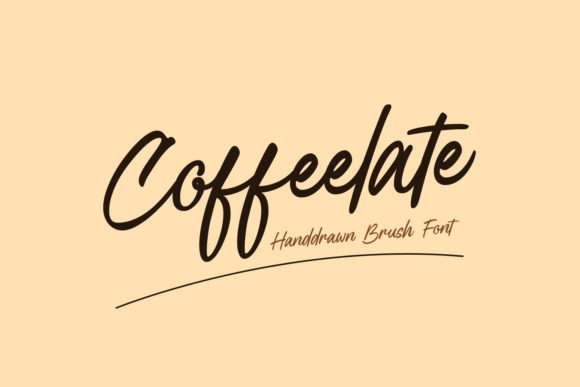
Dive into the world of elegance and creativity with Coffeelate Font, a captivating script font that will transform your design projects into masterpieces. Its light, airy strokes and unique charm will add a touch of sophistication to any creation.
Indulge in the luxury of Coffeelate Font's exquisite design and let your words dance across the page with grace and fluidity. Whether you're a seasoned designer or just starting, this font will elevate your work to new heights.
Coffeelate Font is crafted with meticulous attention to detail, ensuring that each letter and glyph is a work of art. Its exquisite curves, playful swashes, and delicate terminals will leave you breathless.
With Coffeelate Font, you'll have the power to express your creativity in endless ways. Its versatility knows no bounds, making it perfect for logos, branding, invitations, social media graphics, andã�‚らゆるデザインプãƒã‚¸ã‚§ã‚¯ãƒˆ.
Unleash your imagination and let Coffeelate Font guide you to new horizons of design excellence. Its beauty and elegance will leave a lasting impression that will captivate your audience.
Don't settle for ordinary fonts. Embrace the extraordinary with Coffeelate Font and let your designs bloom with creativity and sophistication.